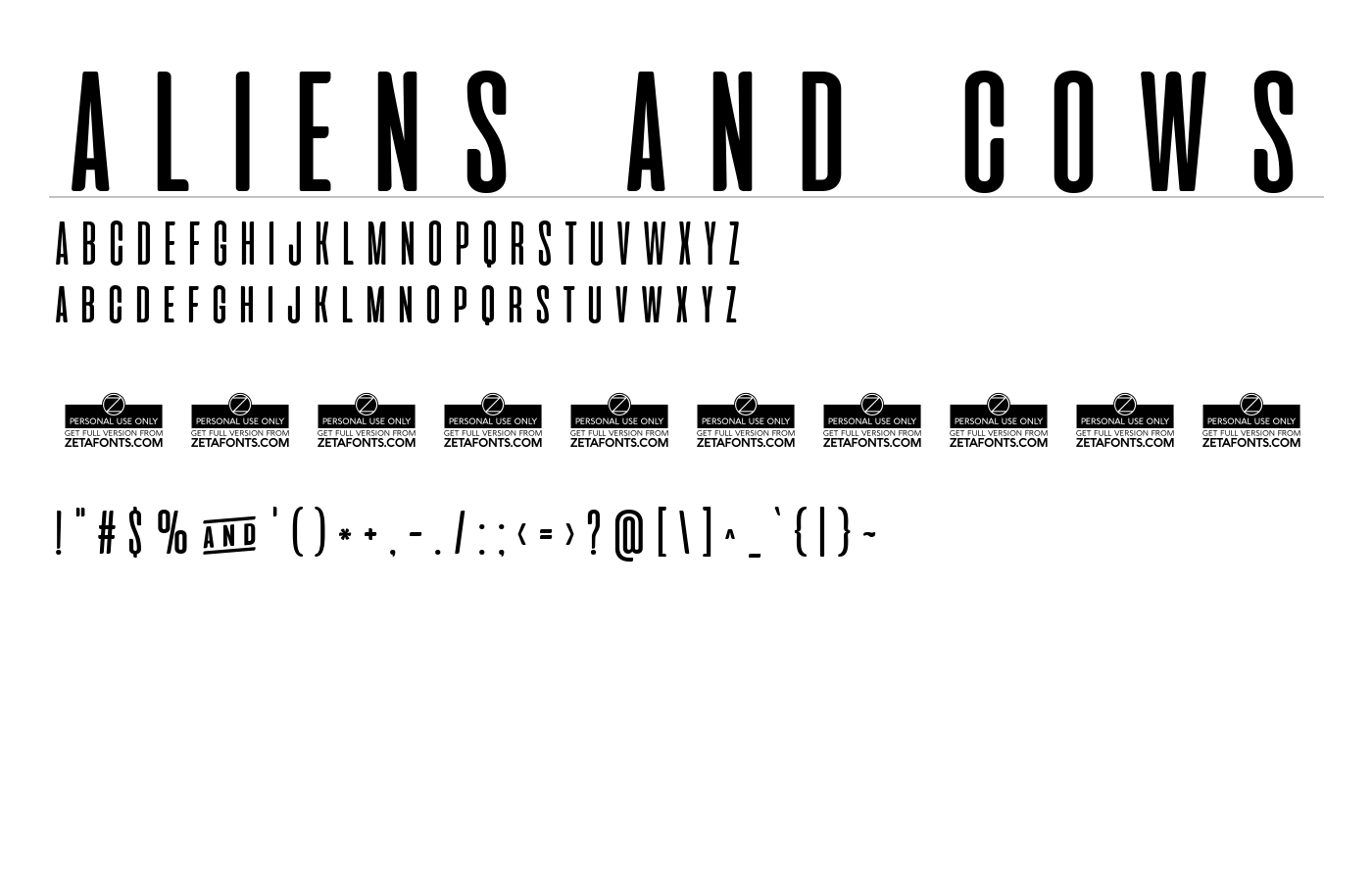
Aliens and Cows is a tall, narrow sans serif font with a modern, condensed appearance that grabs attention with its sleek vertical lines and uniform stroke weight. Its clean, geometric letterforms and all-caps style create a bold, assertive look perfect for striking headlines, logos, and designs needing a futuristic or edgy vibe. This font works especially well where space is tight but impact is key, such as posters, editorial titles, and stylish branding.
| Font family | aliens and cows Font |
| Designer | Francesco Canovaro |